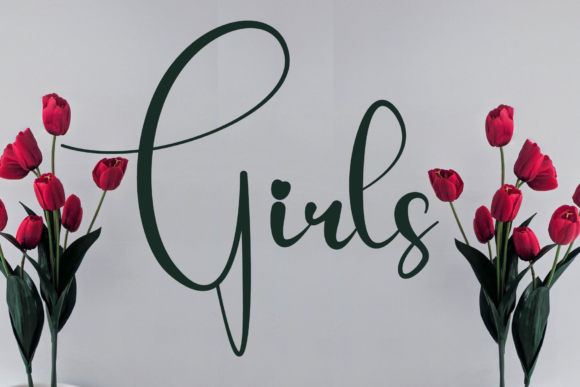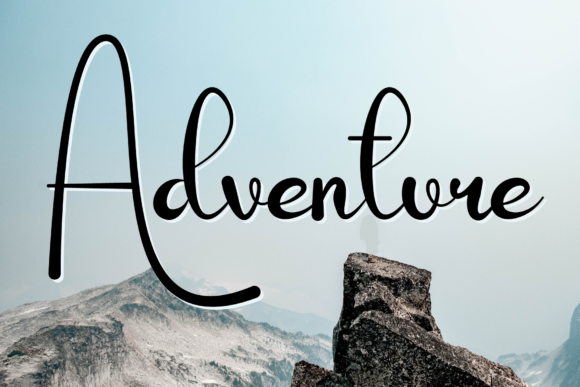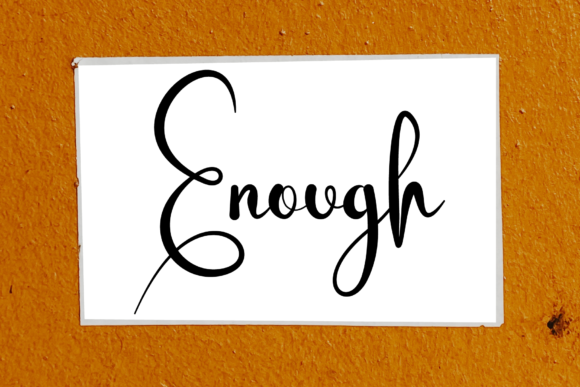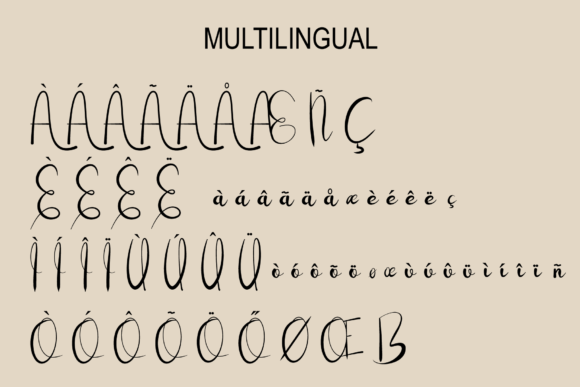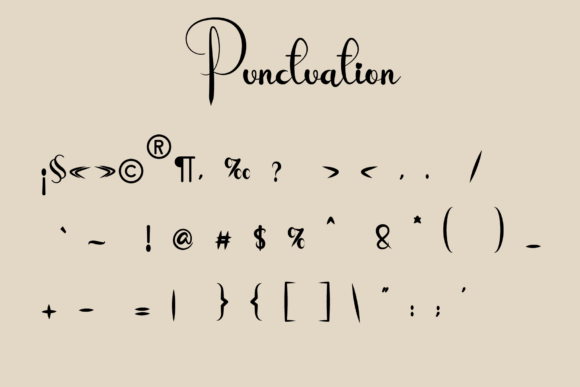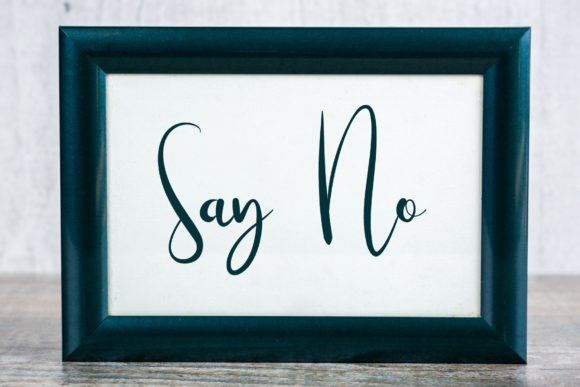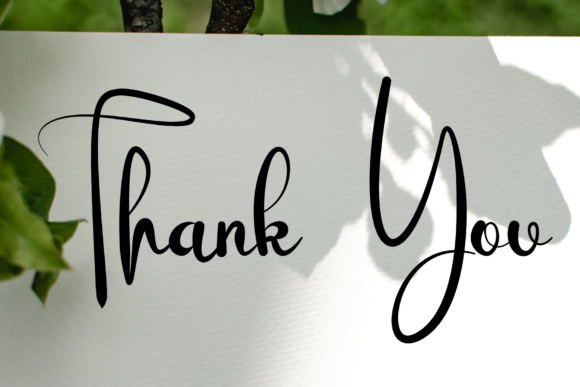
Raise Money Font
About Raise Money Font
Raise Money is a relaxed script font with a cool atmosphere and impeccable form, inspired by timeless calligraphy. Not too thin and not too thick, balanced and varied, this font was designed to enhance the beauty of your projects.